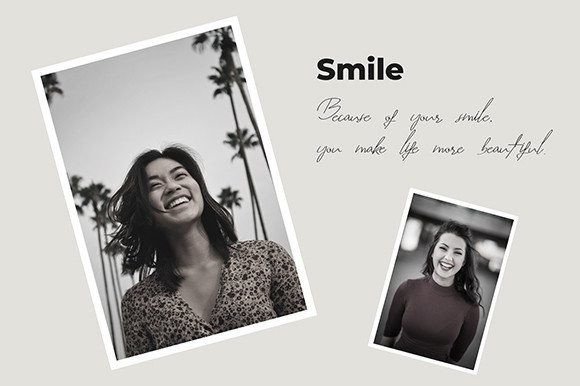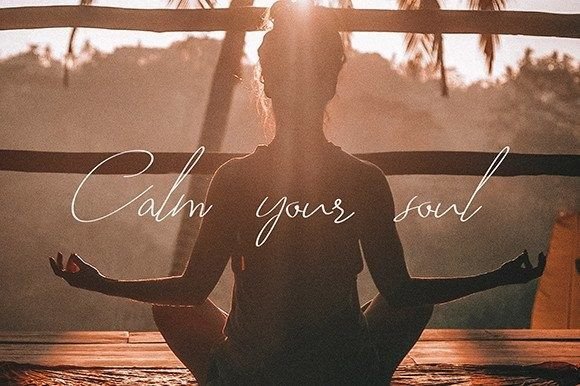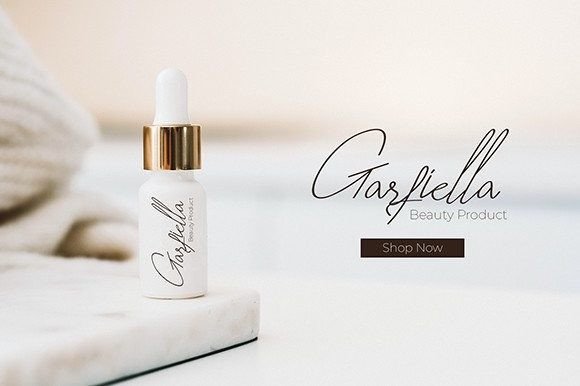
Zawin Linx Font
About Zawin Linx Font
Zawin Linx is a beautifully crafted script font designed to bring an elegant and sophisticated touch to various design projects. Its delicate and graceful appearance makes it a perfect choice for those seeking a font that exudes class and refinement.
The letterforms of Zawin Linx are likely to feature graceful and flowing strokes, contributing to the overall elegance of the font. The script style often implies a sense of handcrafted artistry, giving the characters a unique and personalized touch. This can make Zawin Linx particularly well-suited for projects that require a sense of individuality and craftsmanship.
The font’s versatility allows it to be applied to a wide range of design contexts. Whether used for branding, invitations, logos, or other creative endeavors, Zawin Linx is designed to add a refreshing and beautiful element to the visual composition. Its aesthetic appeal can make it suitable for projects where an upscale and stylish appearance is desired.
For branding purposes, Zawin Linx can contribute to the creation of a memorable and distinctive brand identity. The elegance and class inherent in the font may resonate well with businesses or products aiming to convey a sense of sophistication. Logos and other brand elements created with Zawin Linx can leave a lasting impression on the audience.
In the realm of invitations and stationery, Zawin Linx can bring a touch of refinement to events such as weddings, galas, or upscale gatherings. The script style adds a sense of formality and beauty to the text, enhancing the overall visual appeal of the invitation or announcement.
The refreshing look of Zawin Linx makes it suitable for a variety of creative projects where elegance is a key element. Its use is not limited to specific industries or themes, making it a versatile choice for designers looking to elevate the aesthetics of their work.
In summary, Zawin Linx is a lovely and delicate script font that has been carefully crafted to provide an elegant and refreshing look. Its versatility makes it a valuable asset for designers seeking to add a touch of sophistication and class to their various design projects.